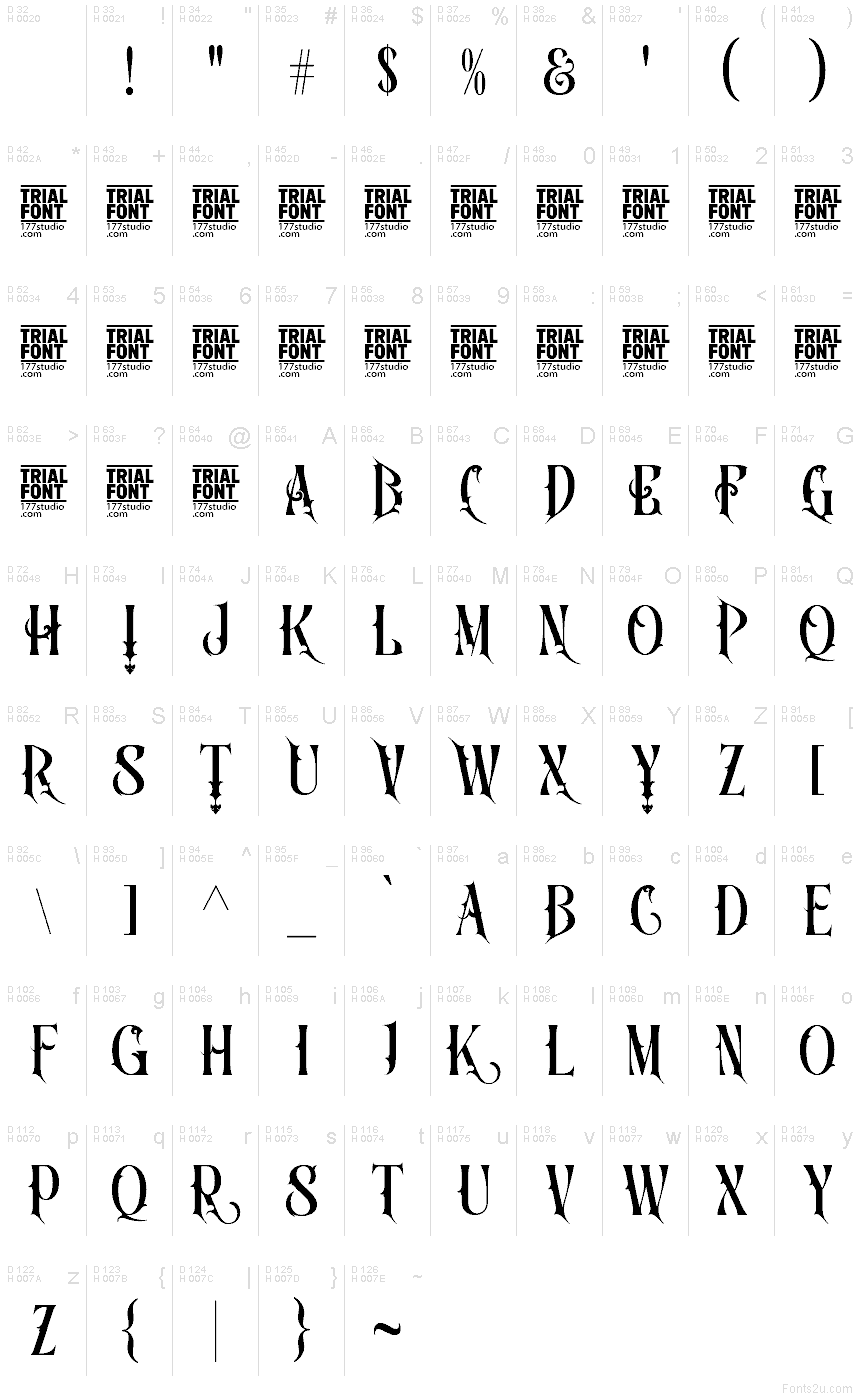
Traditional Challenges Demo Light
Traditional Challenges Light font by 177Studio is a modern gothic typeface with ornamental details and intricate flourishes. It combines historical resonance with a contemporary twist, evoking tradition and formality within its design.
This free gothic font is ideal for book covers, event invitations, museum brochures, posters, branding projects, apparel designs, logos, headlines, social media graphics, magazine covers and more.